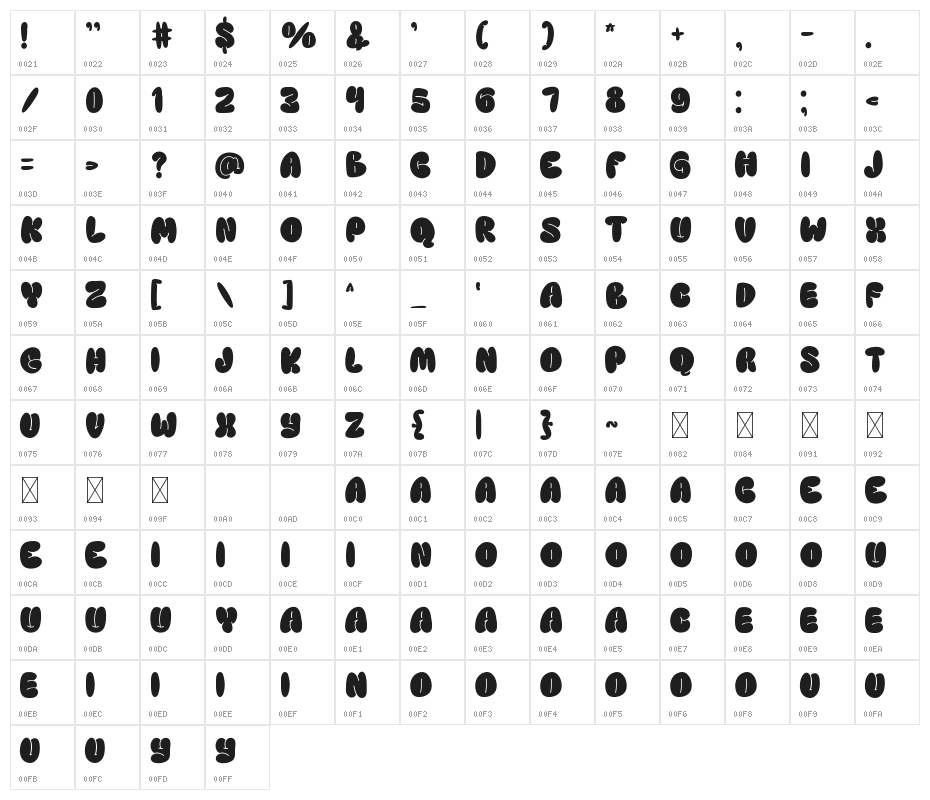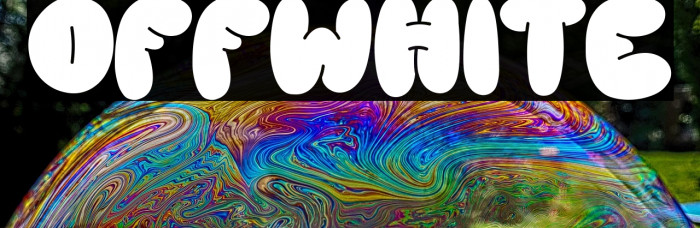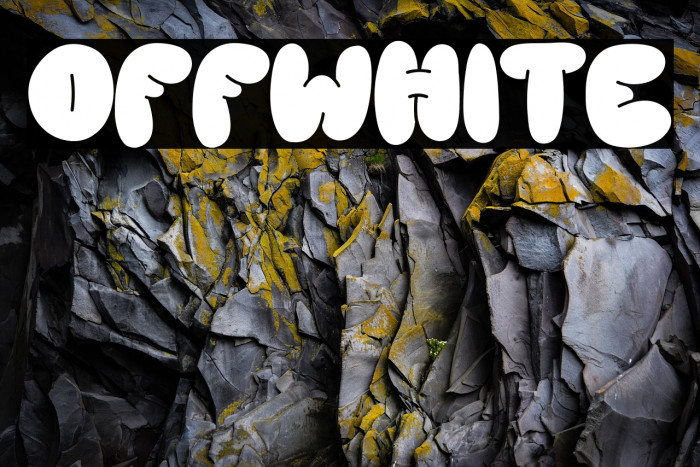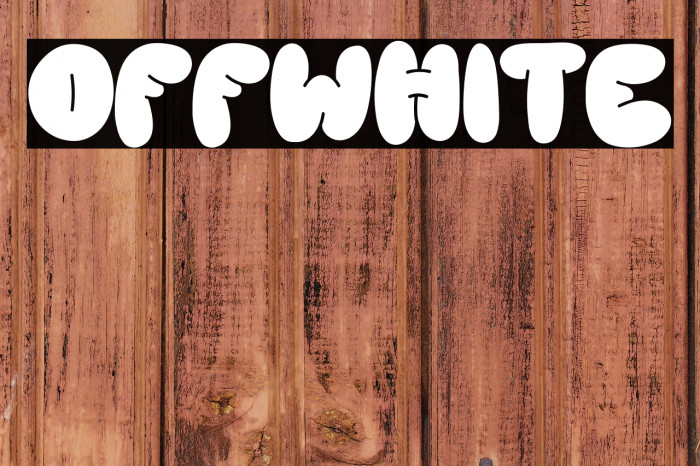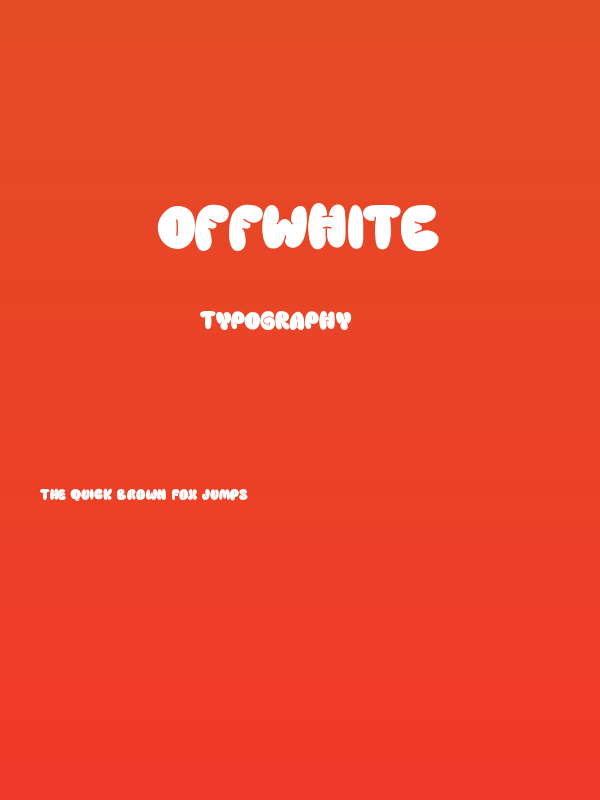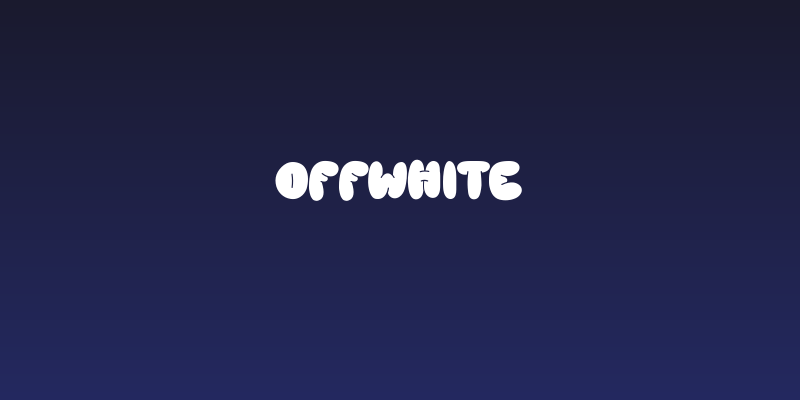
OFFWHITE Font
OFFWHITE Description
This font features bold, rounded characters with a playful and bubbly appearance. The letters are thick and have a consistent weight throughout, creating a sense of uniformity and balance. The rounded edges and smooth curves give it a friendly and approachable feel, making it ideal for designs that aim to convey warmth and fun. The numbers and special characters maintain the same style, ensuring a cohesive look across all elements. This font's distinct style makes it stand out, perfect for catching attention in various design contexts.
| Overall Style | Playful |
| Proposed Projects | Ideal for children's books, playful branding, posters, and social media graphics. |